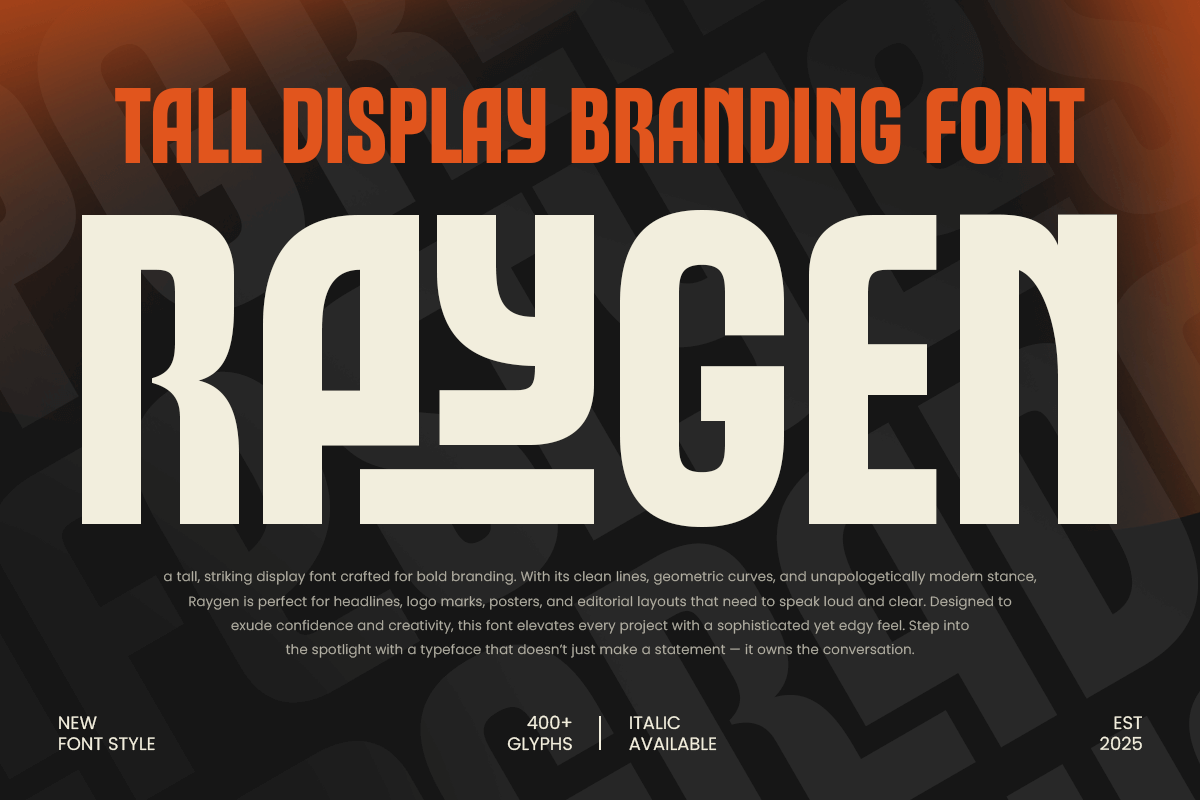
Raygen
-Tall Display Branding Font
Raygen - Tall Display Branding Font
RAYGEN is a tall display font designed to give your branding and headlines a striking, modern presence. Perfect for logos, posters, packaging, and digital media, this font combines height, clarity, and style to make your designs stand out.
With elongated letterforms and clean geometric lines, RAYGEN adds a professional and contemporary touch to any visual identity, ideal for brands and creatives aiming for bold, eye-catching typography.
RAYGEN – Tall Display Branding Font Features
• Tall, elegant, and modern character set
• Available with Regular and Italic Version
• Perfect for branding, headlines, and display use
• OpenType features (Ligature, Alternate) for extra versatility
Elevate your projects with RAYGEN – the ultimate tall display font for modern branding!